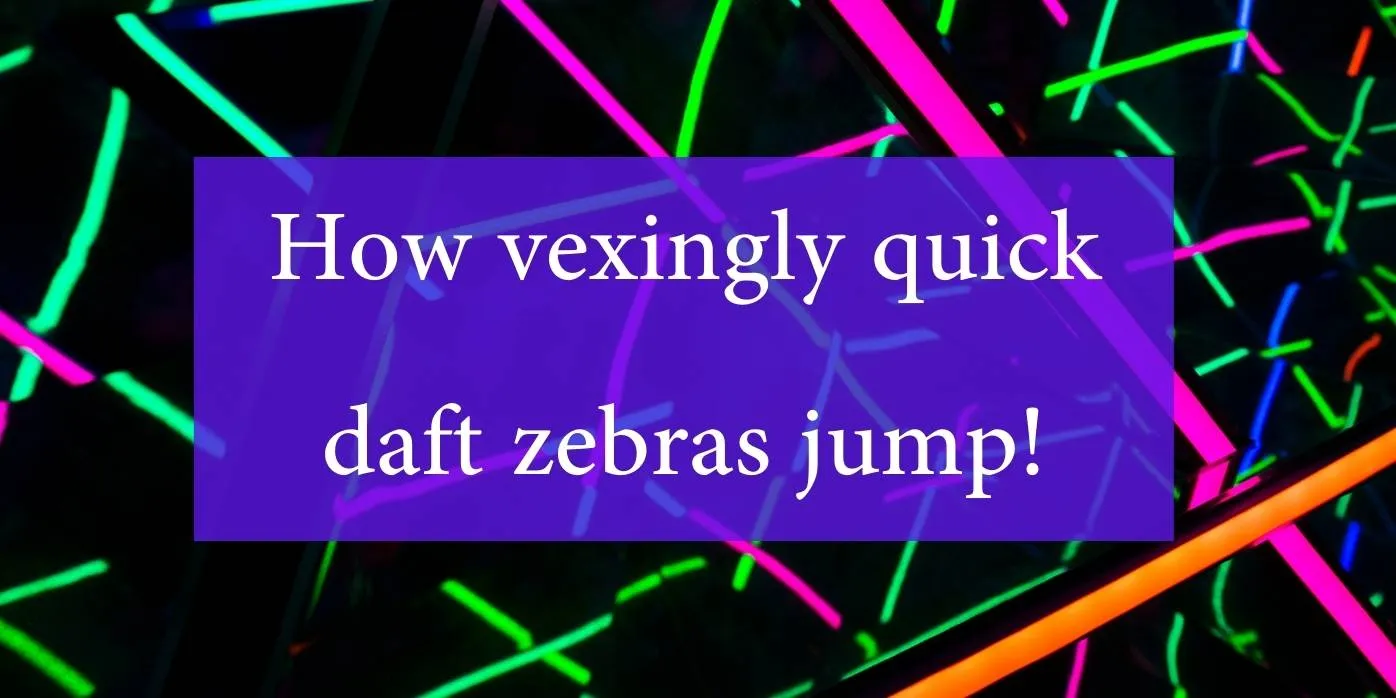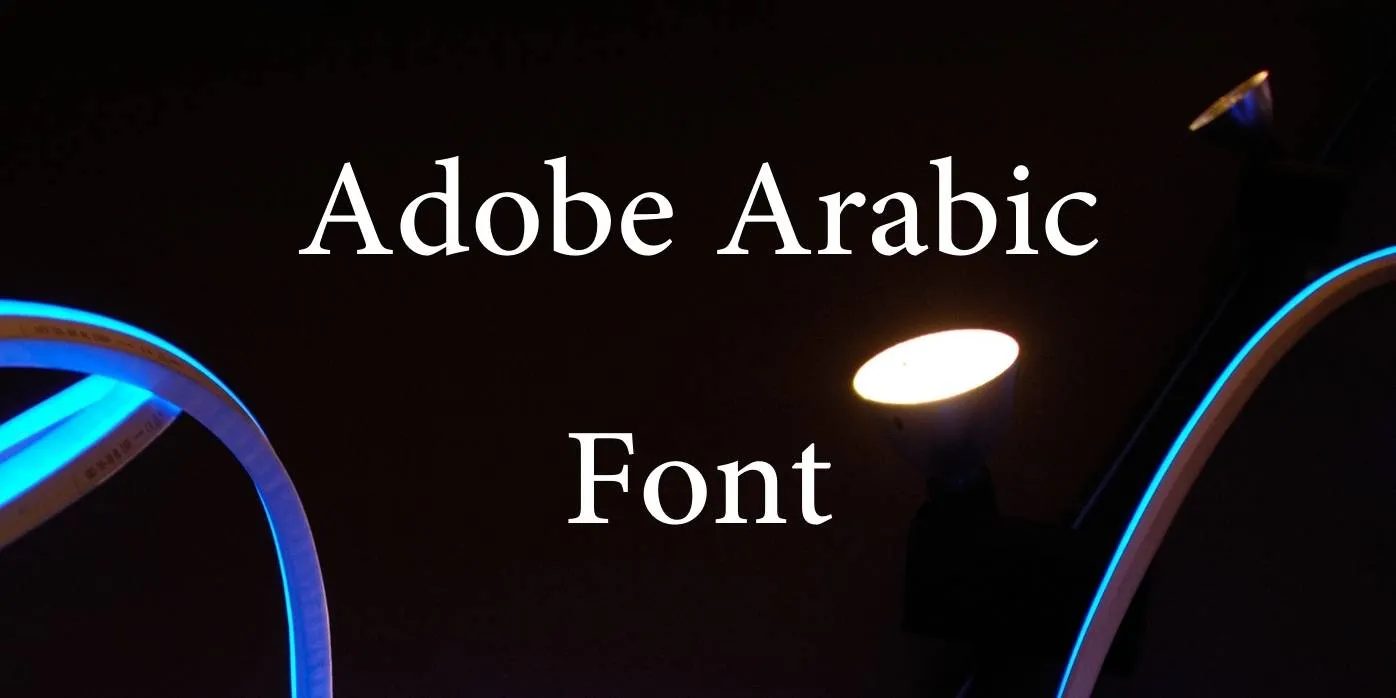
Adobe Arabic Font
Adobe Arabic font is a great typeface designed by Robert Slimbach and Tim Holloway for use in the Arabic language. It belongs to the Serif typeface. It is an open typeface that supports several writing systems. This font has been designed to work on screen and in print.
This typeface is specified by the CSS Family. This stunning typeface was first released in 2001 as part of this typeface family. It also includes support for right-to-left text layout and features a wide range of ligatures. This typeface has been designed for both screen and print use.
It has a lot of different Glyphs nearly equal to 1,214. Hoefler Font is similar to this typeface. It has a very distinct look and feels to it. It is perfect for headlines, logos, and branding.
The typeface is also very legible when used in small quantities of text. One of the great things about the font is that it is free to download and use. It can be used in a wide range of applications, including web design, graphic design, and print design.